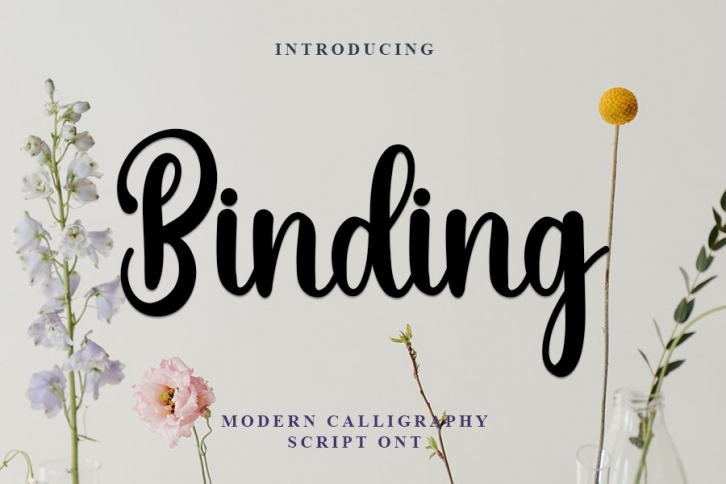
Binding is a gorgeous font that was realeased on November 25, 2021. The font can be used in many style contexts and design environments. Perfect for invitations, magazines, websites, logos, and more! It was designed by InermediaSTUDIO and the file size is 5.66 MB. Thanks for checking out this font!